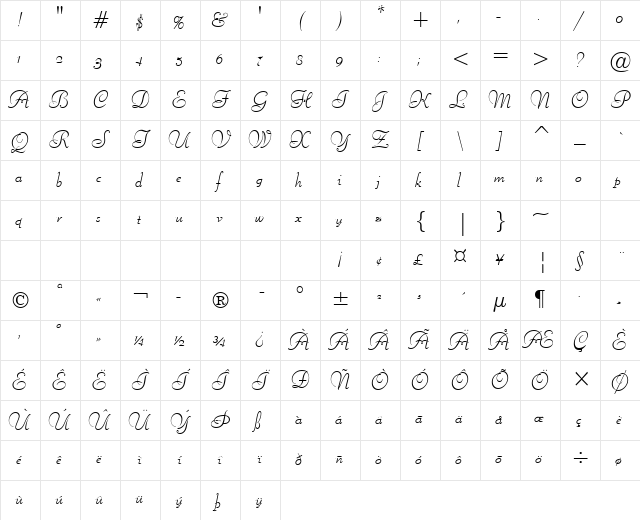
Liberate Normal
Liberate Family
Liberate Normal
Design Context for Liberate
Liberate is a composed and adaptable typeface that performs quietly and consistently across a wide range of design contexts.